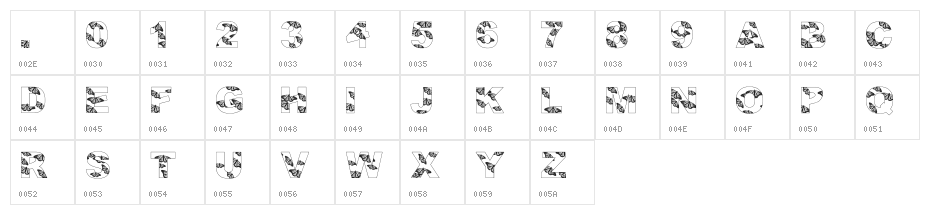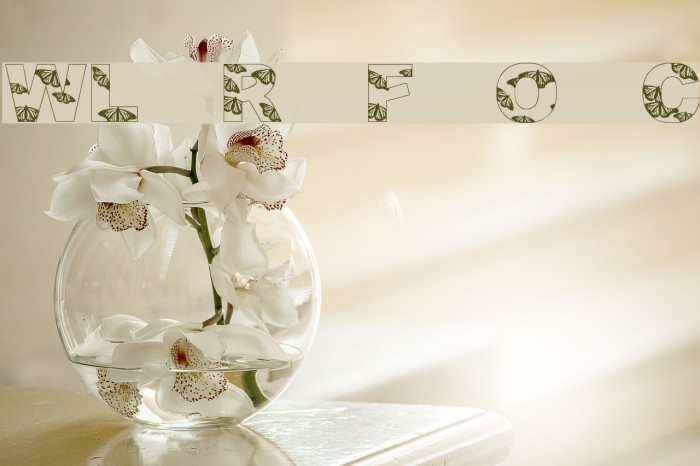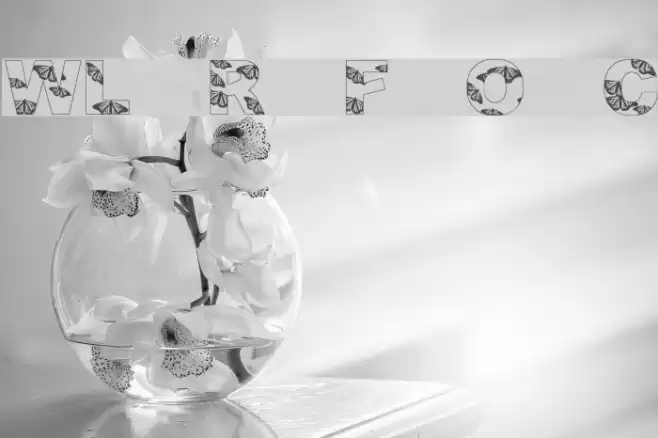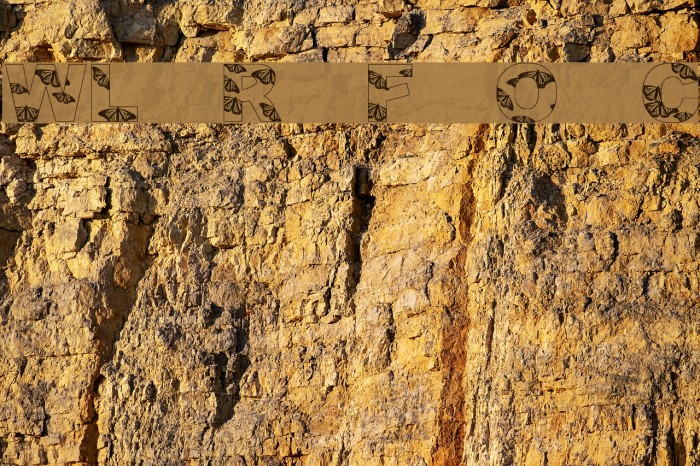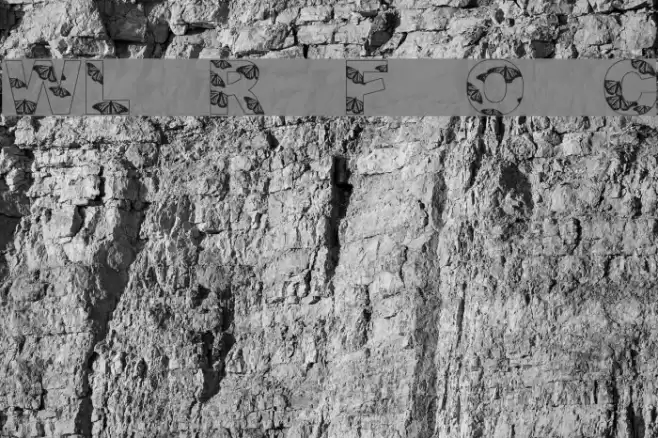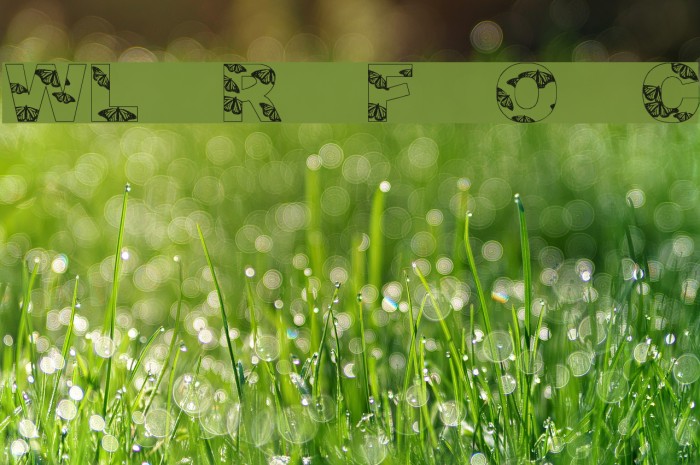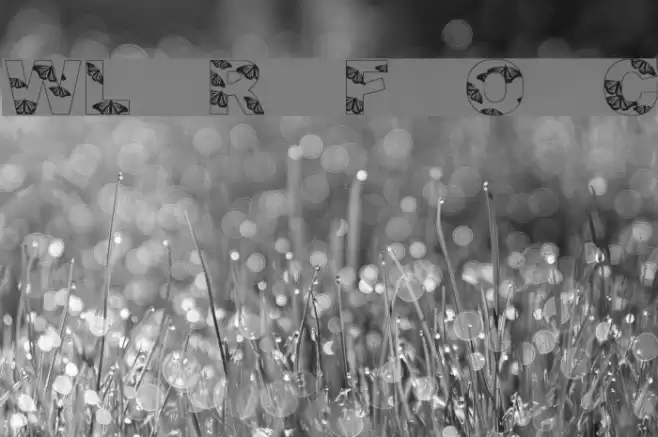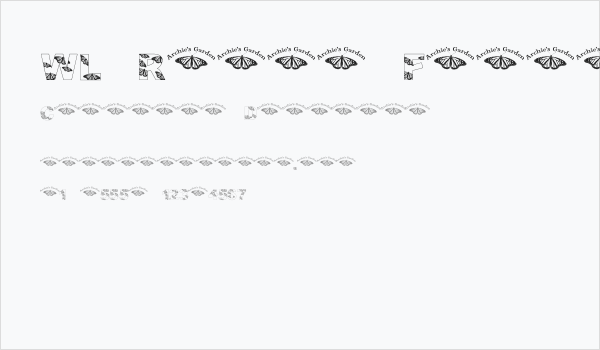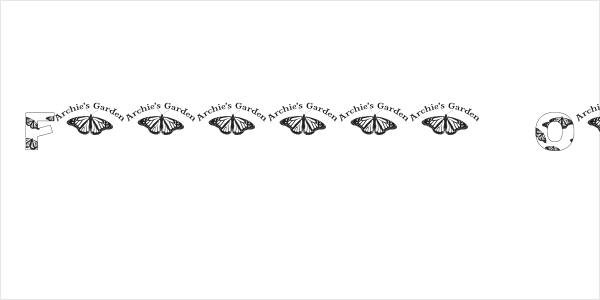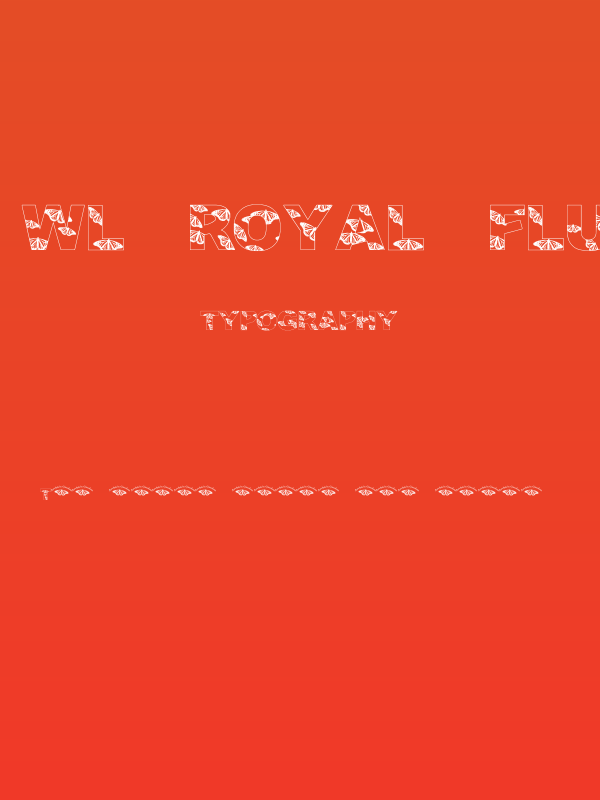
WL Royal Flutter Open Caps Font
WL Royal Flutter Open Caps Description
This decorative font features uppercase letters and numbers with intricate butterfly and floral patterns embedded within each character. The design is bold and eye-catching, making it ideal for creative projects that require a unique and artistic touch. The characters are outlined, allowing the detailed patterns to stand out prominently. This font is perfect for projects that aim to convey elegance and creativity, such as invitations, posters, or branding materials.
| Proposed Projects | Ideal for invitations, posters, branding materials, and any project needing an artistic and elegant touch. |